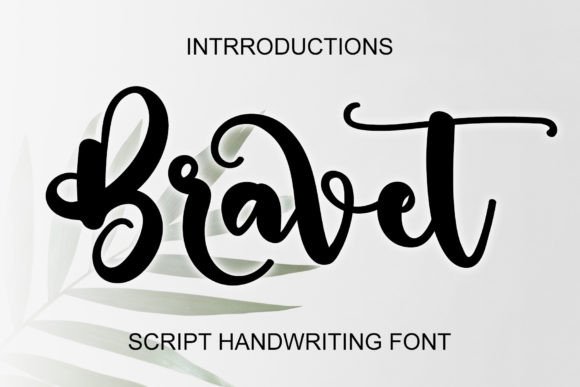
The Magic of Bravet Font: Adding Holiday Cheer to Your Designs
It’s that time of the year again – the holiday season is just around the corner, and with it comes the pressure to create stunning designs that capture the spirit of the festivities. I still remember the year I was tasked with designing a Christmas card for a client’s family gathering. I spent hours scouring the internet for the perfect font, only to end up with a bland, generic typeface that failed to convey the cheer and warmth I was going for. That’s when I stumbled upon Bravet Font, a festive and merry typeface that instantly added a touch of enchantment to my designs.
A Festive Favorite: What I Love About Bravet Font
Bravet Font has quickly become a staple in my design toolkit, and for good reason. Here are just a few things that make it stand out:
• ✨ Festive and merry vibe that’s perfect for holiday-themed projects
• ✅ Decorative elements and whimsical flair that add a touch of magic to your designs
• 🎉 Highly versatile and adaptable to various design styles and formats
• 👍 Easy to read and understand, even at smaller font sizes
Honest Review: A Few Quirks to Keep in Mind
While Bravet Font is an excellent choice for holiday designs, there are a few quirks to keep in mind:
• 🤔 Limited character set, which may not be suitable for projects requiring a wide range of special characters
• ⚠️ May not be the best choice for body text or long-form content, as it’s designed primarily for headlines and titles
3. Experiment with OpenType features, such as glyphs and stylistic alternates, to add more flair to your text
The Story Behind Bravet Font
Bravet Font was designed by a team of creative enthusiasts who wanted to capture the magic and wonder of the holiday season. Inspired by vintage Christmas cards and festive decorations, they crafted a typeface that’s both nostalgic and modern. The result is a font that’s sure to bring a smile to your face and a touch of enchantment to your designs.
What is Bravet Font best used for? Bravet Font is perfect for holiday-themed projects, such as greeting cards, gift tags, and festive decorations.
Is Bravet Font available in different languages? Bravet Font may not support all languages, but it does include a range of special characters and glyphs.